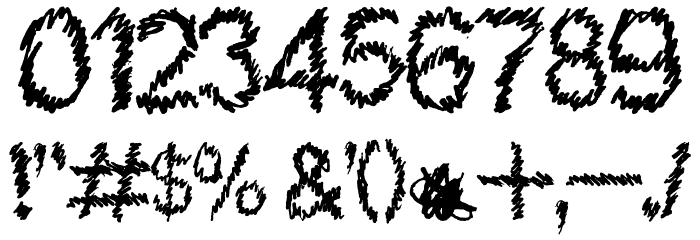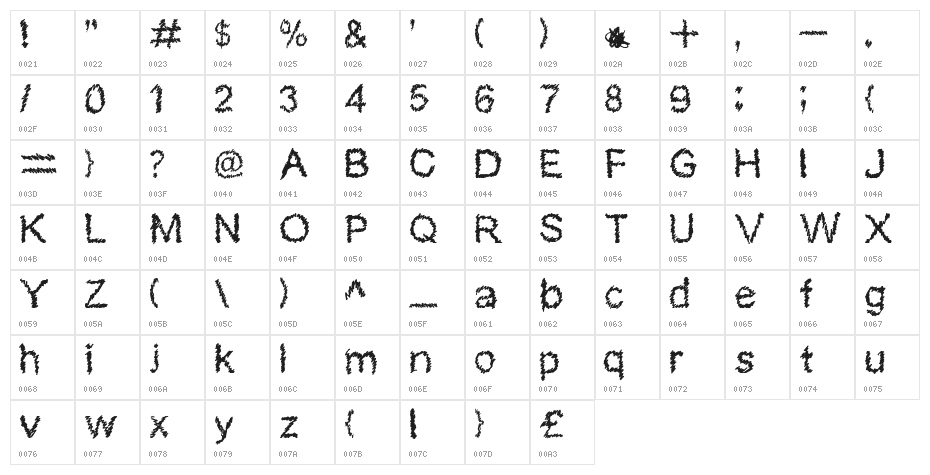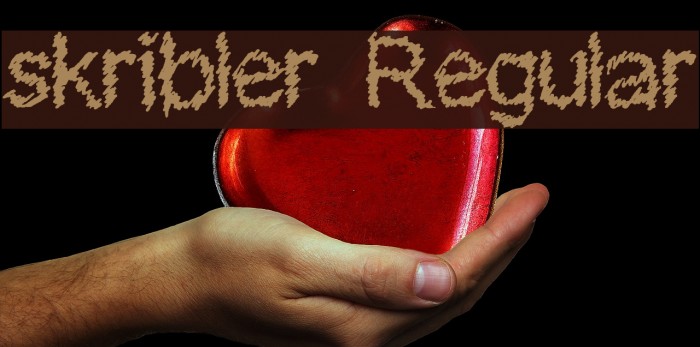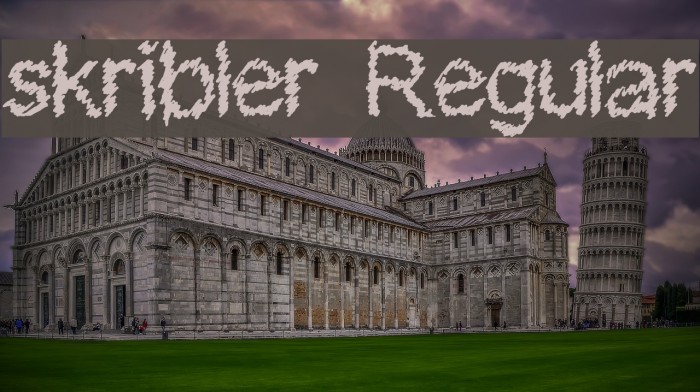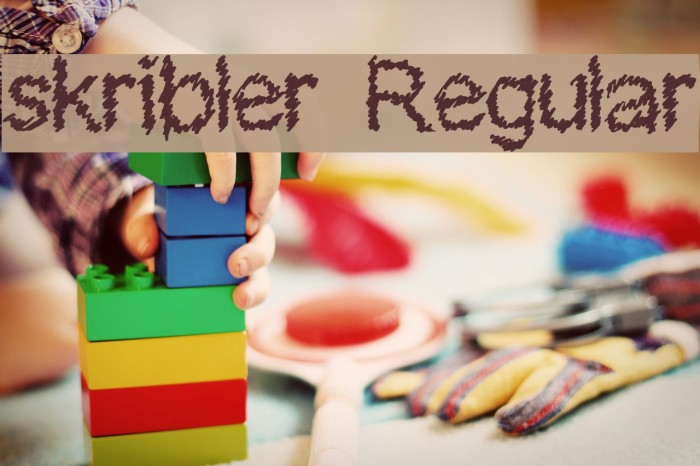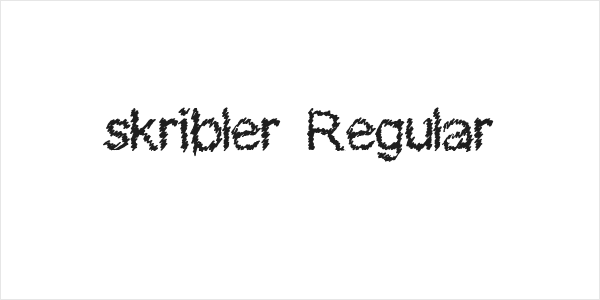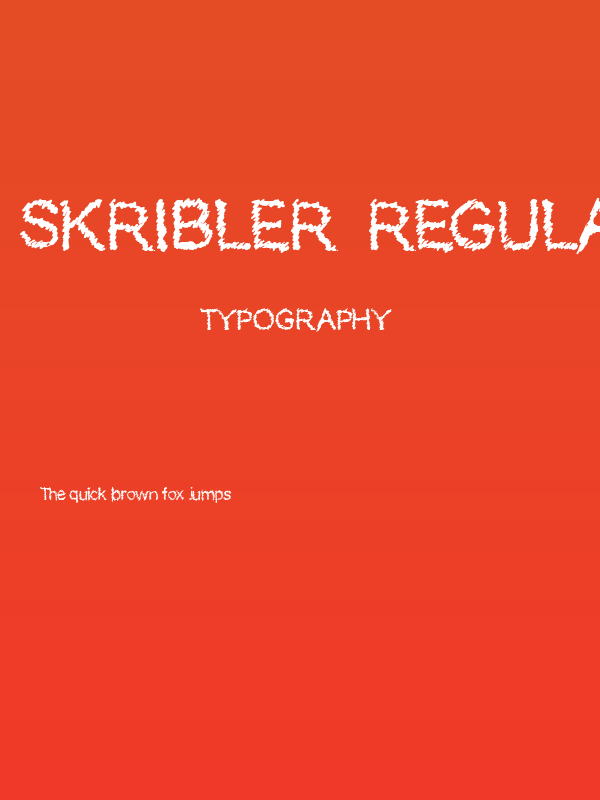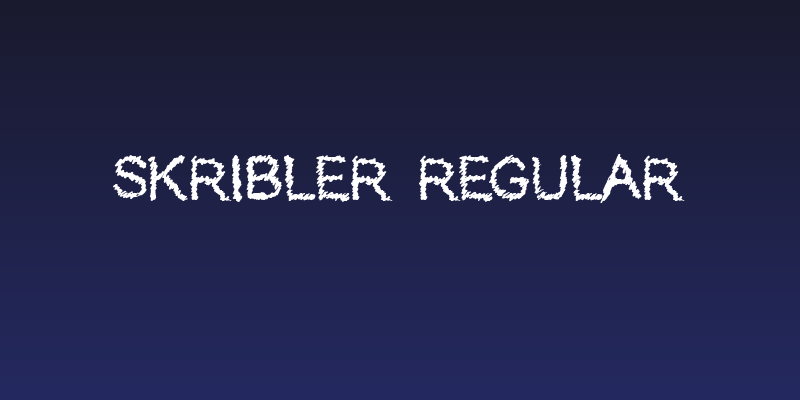
skribler Regular Font
skribler Regular Description
This font features a distinctive, hand-drawn appearance with a playful and artistic style. The characters are formed with a scribbled texture, giving them a dynamic and energetic look. The uppercase and lowercase letters maintain a consistent style, with a slightly irregular and organic feel. The numbers and special characters follow the same design, ensuring a cohesive appearance across all elements. This font's unique texture and lively character make it stand out, ideal for creative and informal projects.
Proposed ProjectsIdeal for creative projects such as children's books, artistic posters, and informal branding.